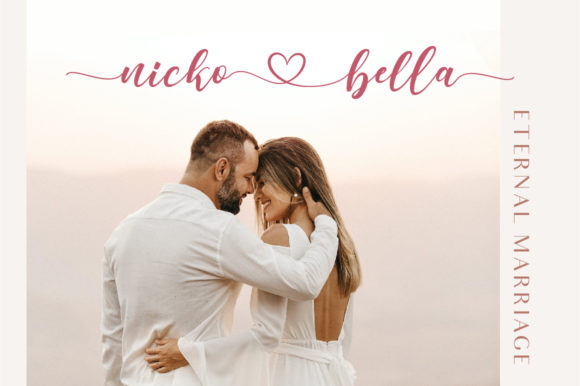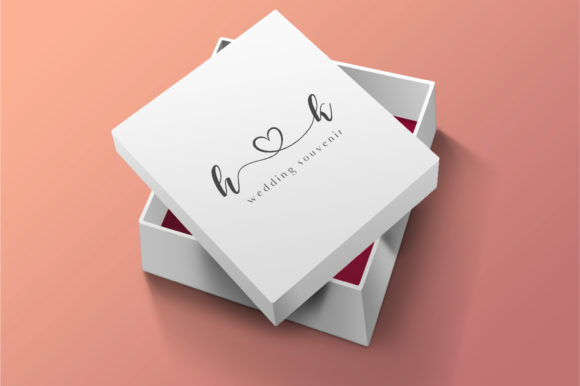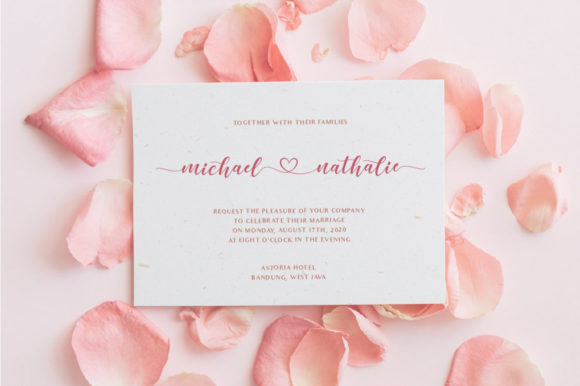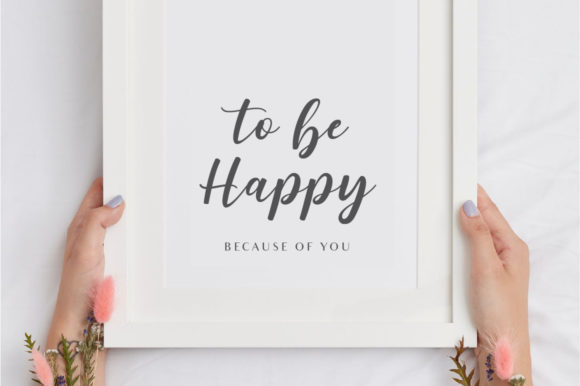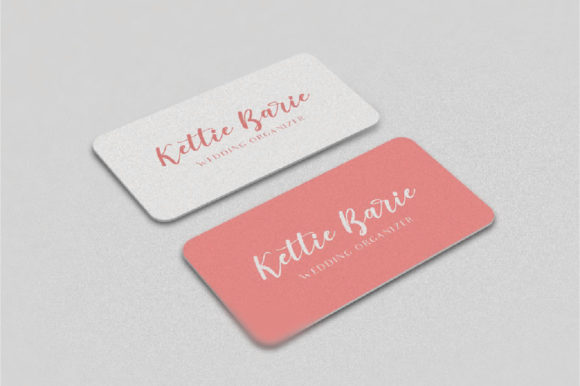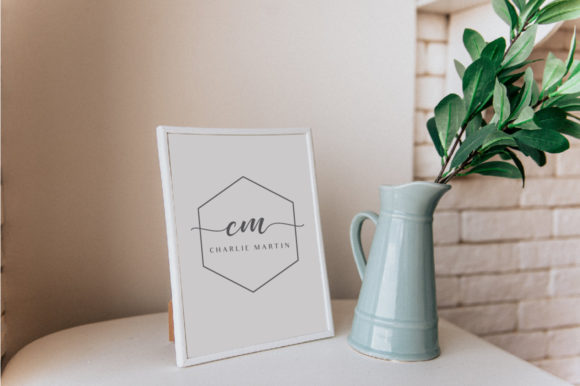
Discover the Elegance of Dear Love Font: Elevate Your Designs with This Beautiful Handwritten Script
Are you on the lookout for a font that exudes elegance, sophistication, and a touch of modern flair? Look no further than the Dear Love Font, a stunning handwritten script that is sure to capture your heart. This exquisite font is designed to bring a classy, calligraphic feel to your projects, making it perfect for designers, crafters, and anyone looking to add a personal touch to their work.
What Makes Dear Love Font So Special?
Dear Love Font is an elegant and flowing handwritten font that boasts a range of features that set it apart from other fonts. Here are just a few reasons why this font is a must-have for any designer or crafter:
- PUA Encoded for Easy Access: Dear Love Font is PUA (Private Use Area) encoded, which means that you can easily access all of the glyphs and swashes with just a few clicks. This makes it simple to customize your text and add a personal touch to your designs.
- Varying Baseline for a Natural Look: The font features a varying baseline, which gives it a natural, handwritten look that is both elegant and sophisticated.
- Smooth Lines and Gorgeous Glyphs: The lines in Dear Love Font are smooth and flowing, while the glyphs are beautifully designed to add a touch of whimsy to your text.
- Stunning Alternates for Added Versatility: The font comes with a range of stunning alternates, which give you the flexibility to experiment with different looks and styles.
Perfect for a Range of Projects
Dear Love Font is a versatile font that is perfect for a range of projects, including:
- Wedding Invitations and Stationery: The elegant, calligraphic feel of Dear Love Font makes it perfect for wedding invitations, stationery, and other special occasion designs.
- Branding and Packaging: The font’s modern, sophisticated look makes it ideal for branding and packaging projects, where you want to make a lasting impression.
- Signage and Display Text: Dear Love Font is also perfect for signage and display text, where its elegant lines and gorgeous glyphs can be showcased to full effect.
Why Choose Dear Love Font?
So why choose Dear Love Font over other fonts? Here are just a few reasons why this font stands out:
- Unique and Eye-Catching: Dear Love Font is a unique and eye-catching font that is sure to grab attention and leave a lasting impression.
- Easy to Use: The font is PUA encoded, making it easy to access all of the glyphs and swashes, even if you’re not a seasoned designer.
- High-Quality Design: The font is beautifully designed, with smooth lines, gorgeous glyphs, and stunning alternates that will elevate your designs to the next level.
In conclusion, Dear Love Font is a must-have for any designer or crafter looking to add a touch of elegance and sophistication to their work. With its PUA encoding, varying baseline, smooth lines, gorgeous glyphs, and stunning alternates, this font is sure to capture your heart and bring your projects to the highest levels. So why wait? Fall in love with Dear Love Font today and discover the perfect way to elevate your designs!
Whether you’re working on a wedding invitation, a branding project, or simply want to add a personal touch to your work, Dear Love Font is the perfect choice. So go ahead, give it a try, and see the difference it can make to your designs!